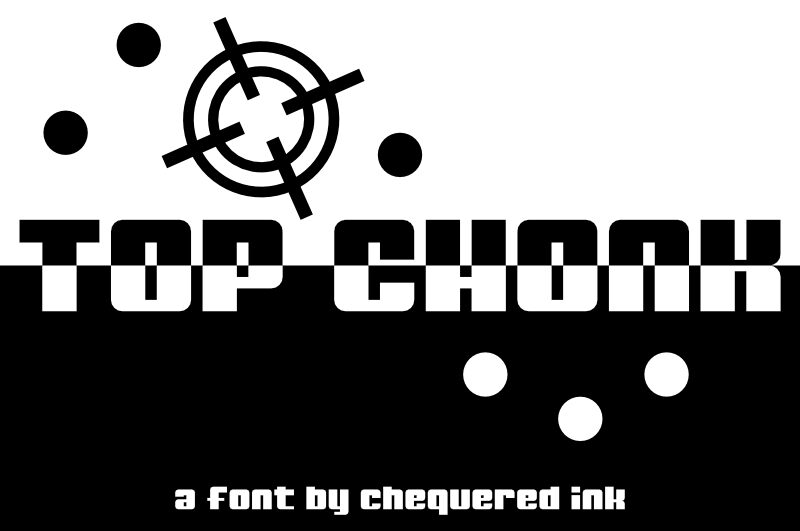
Top Chonk Regular
Top Chonk is an eye-catching sans serif font designed by Chequered Ink, characterized by its bold presence and playful personality. This font boasts a hefty appearance, making it perfect for grabbing attention in any design context. Its rounded edges evoke a sense of friendliness while maintaining an air of modernity.
Visually, Top Chonk stands out with its expansive letters that convey strength and confidence. Whether used in branding, posters, or social media graphics, it effortlessly communicates enthusiasm and creativity.
Ideal for vibrant projects that aim to make a statement, Top Chonk's distinctive aesthetic ensures that your message resonates with impact. Its unique charm and robust form invite exploration and engagement in diverse applications—making it an excellent choice for anyone looking to elevate their design work.